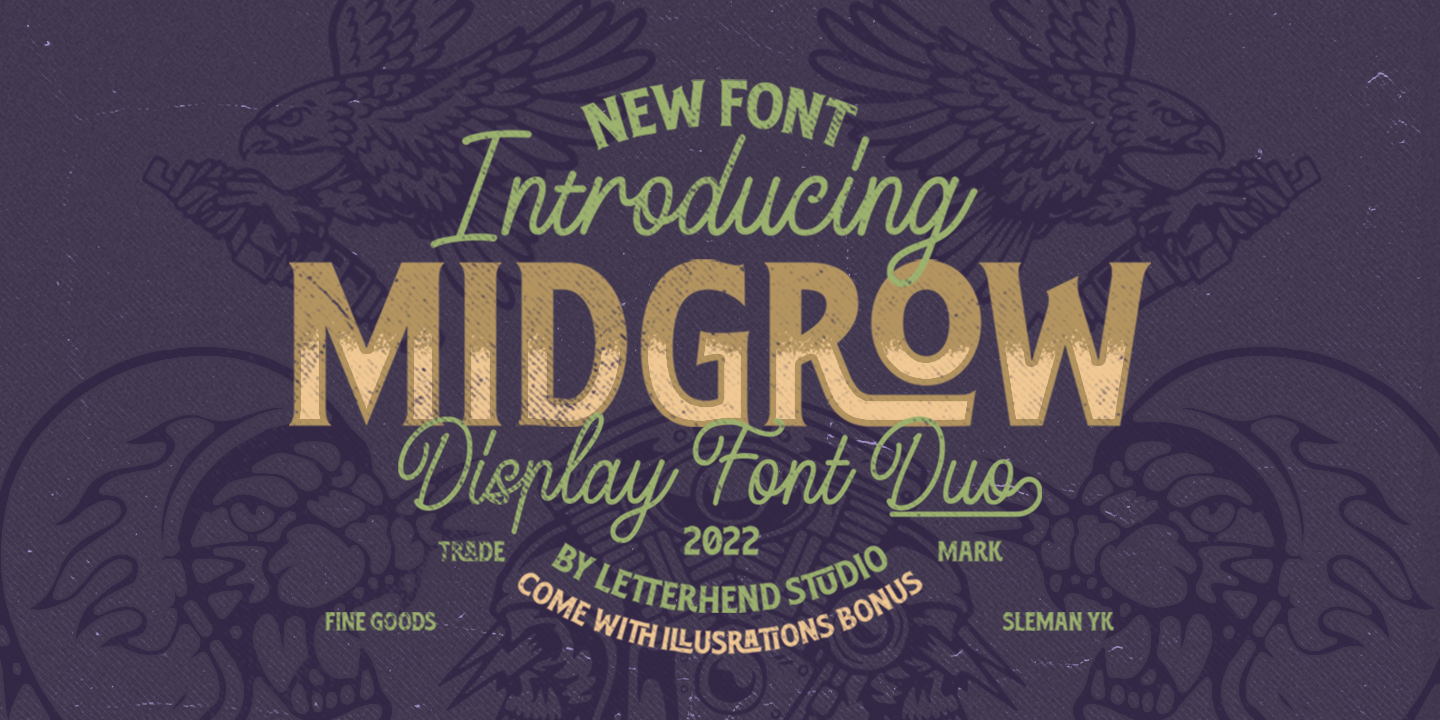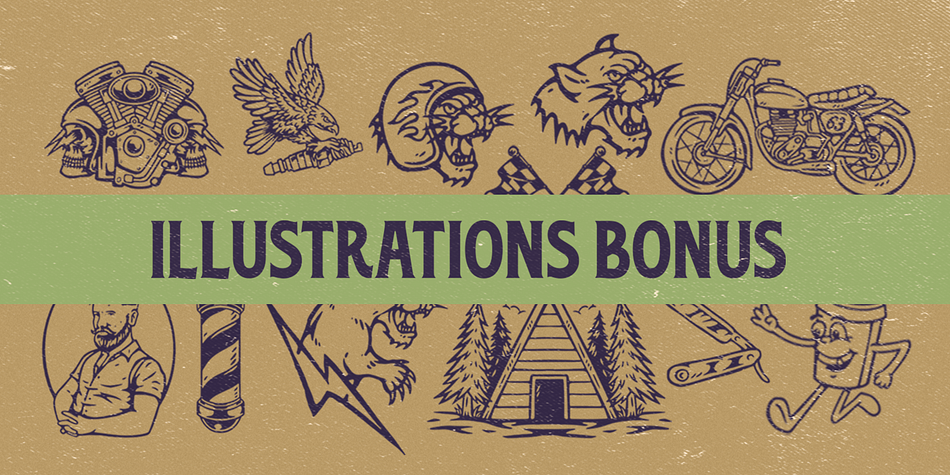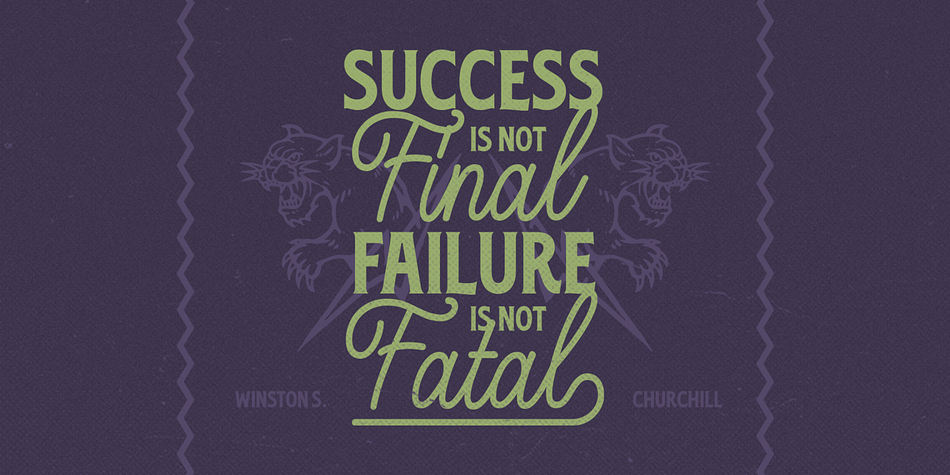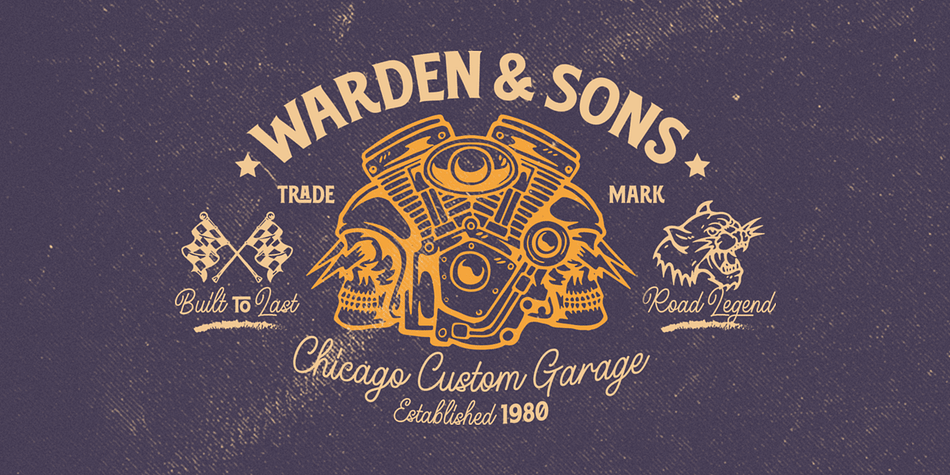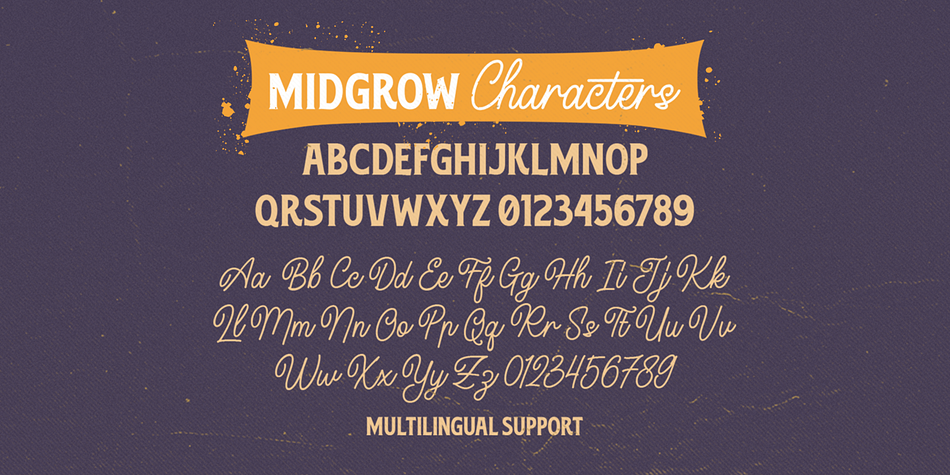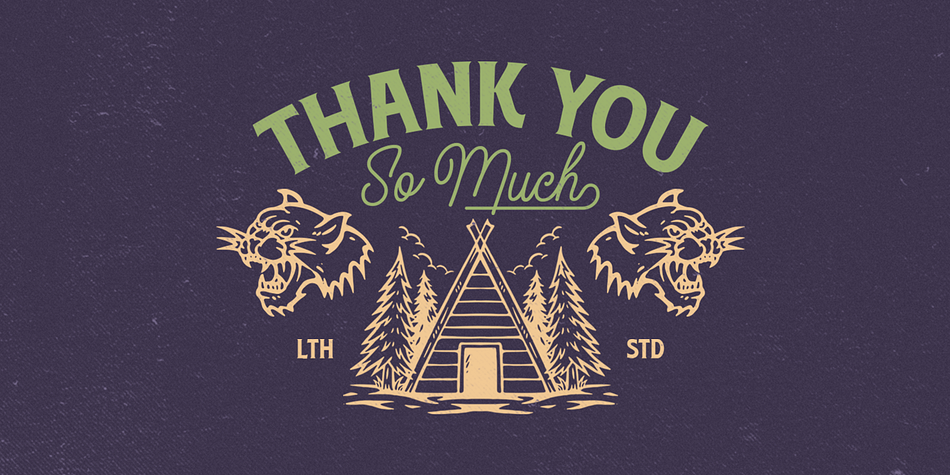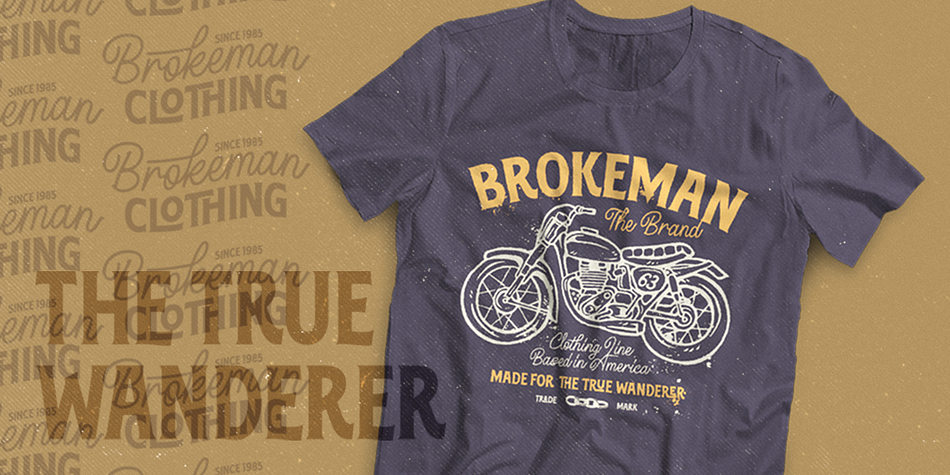
Designed by Hendry Juanda, Midgrow is a display, display serif and script font family. This typeface has two styles and was published by Letterhend Studio.
Midgrow is a font duo package contain a monoline script and serif which looks great to be paired especially for vintage and adventure theme! It also comes with extra illustration! This font duo is purposely made for headline, display or logotype, and signature which need a standout appearing. This font is also suitable to be applied especially in logo, and the other various formal forms such as invitations, labels, logos, magazines, books, greeting / wedding cards, packaging, fashion, make up, stationery, novels, labels or any type of advertising purpose.
- Regular & Script
- Bonus Illustration
- alternates & ligatures